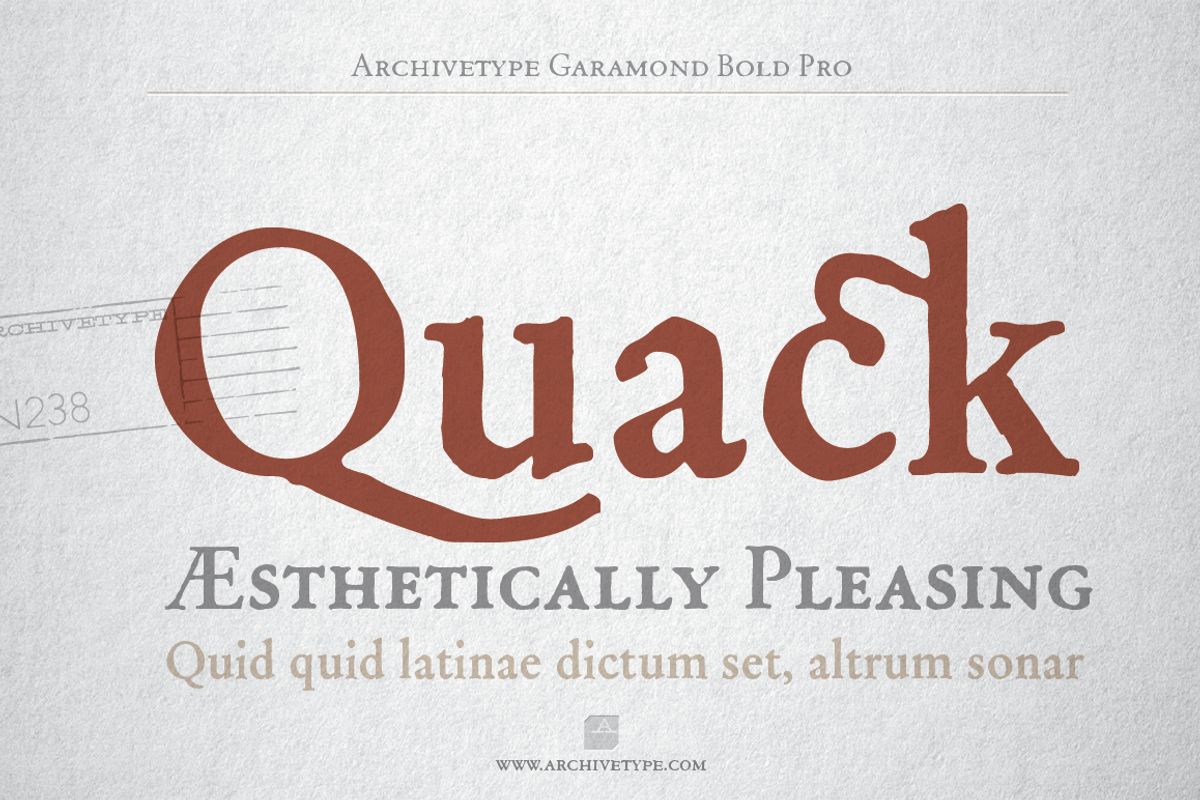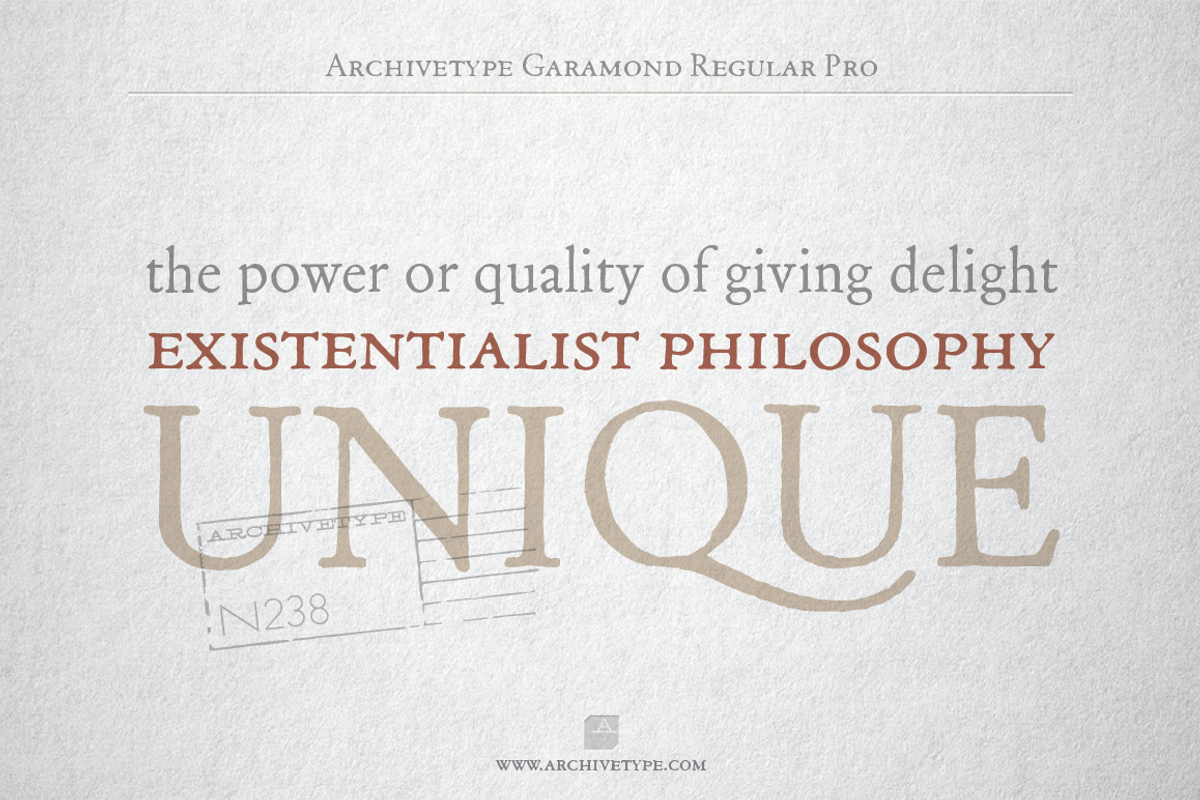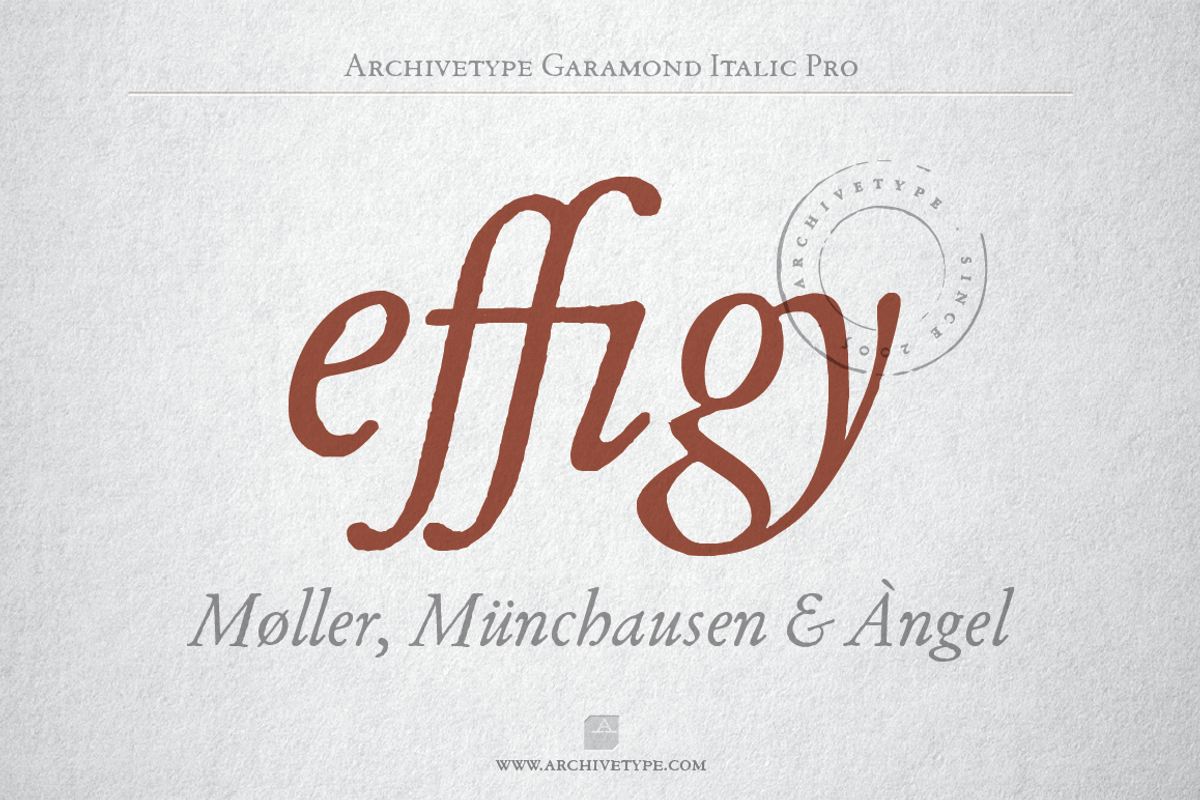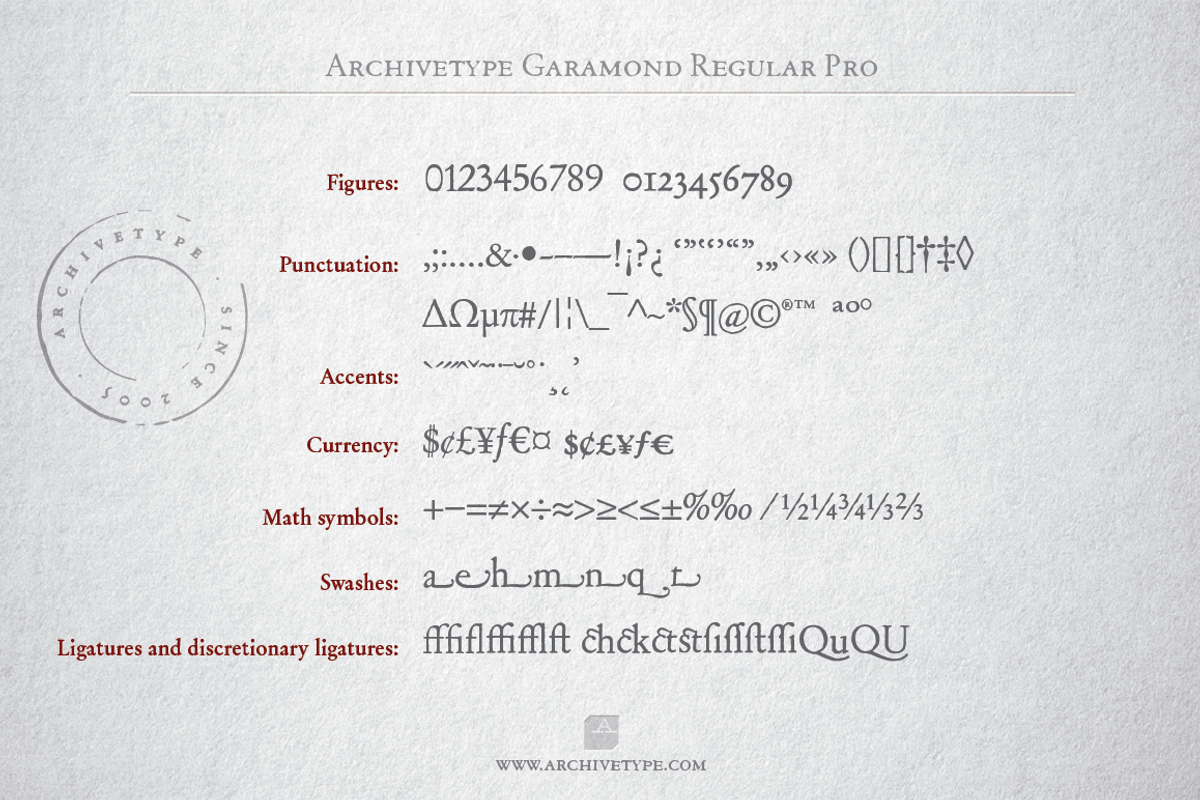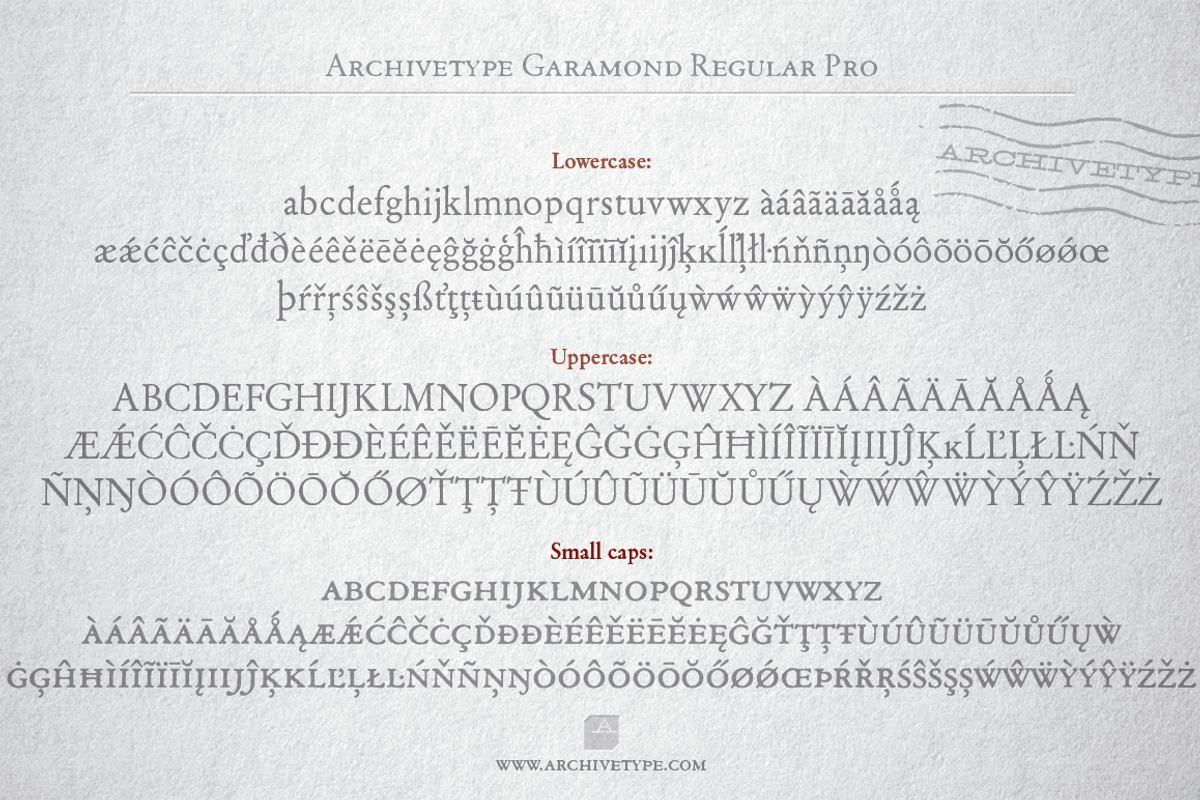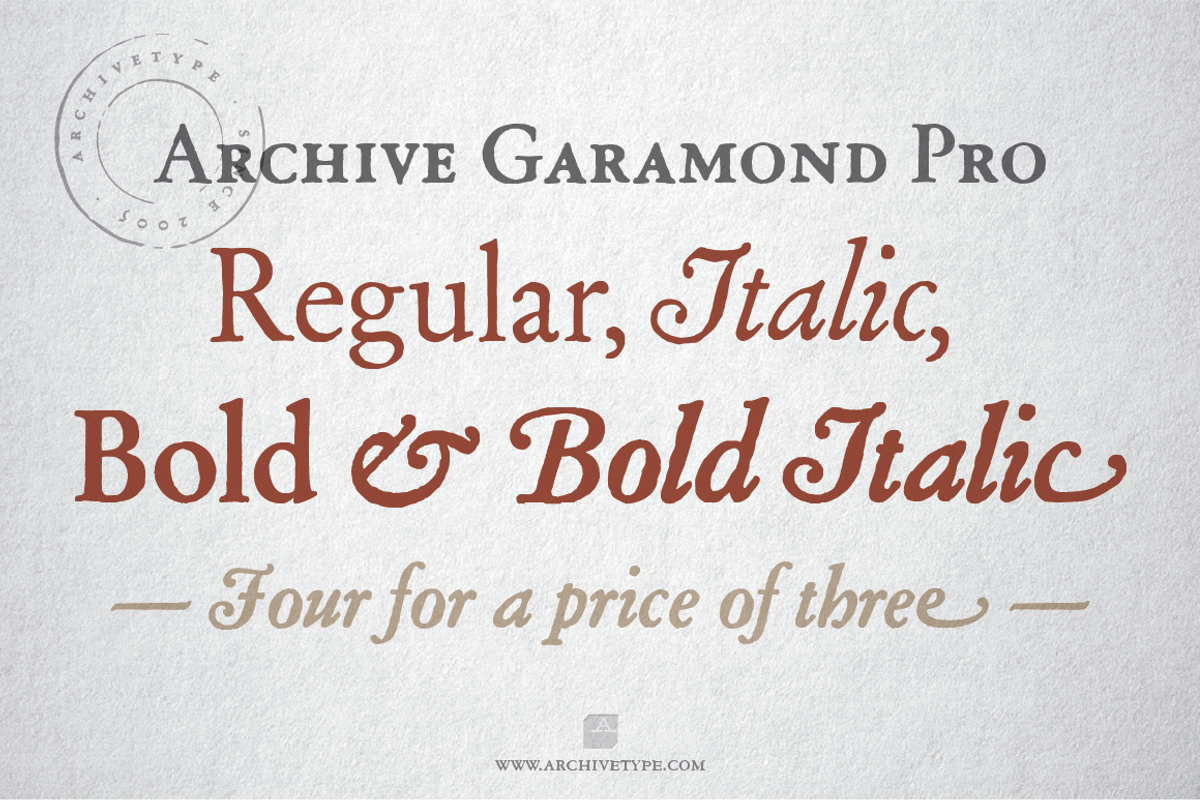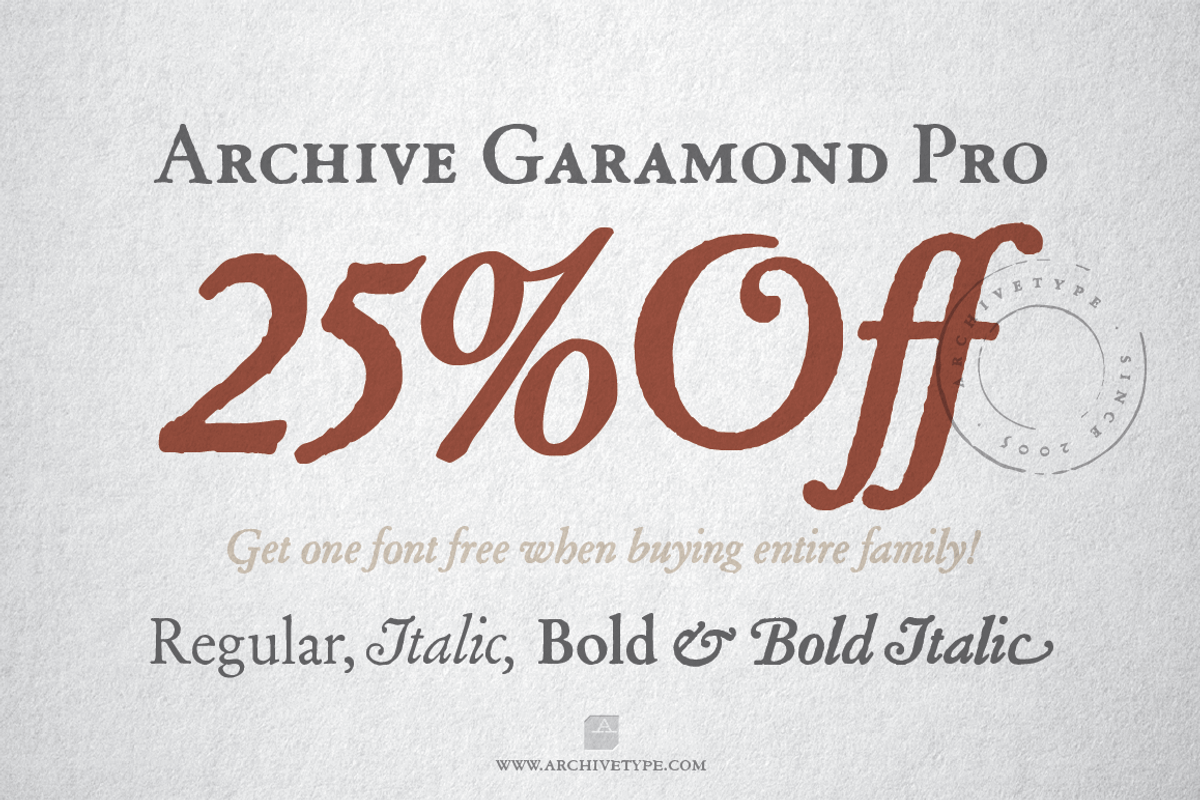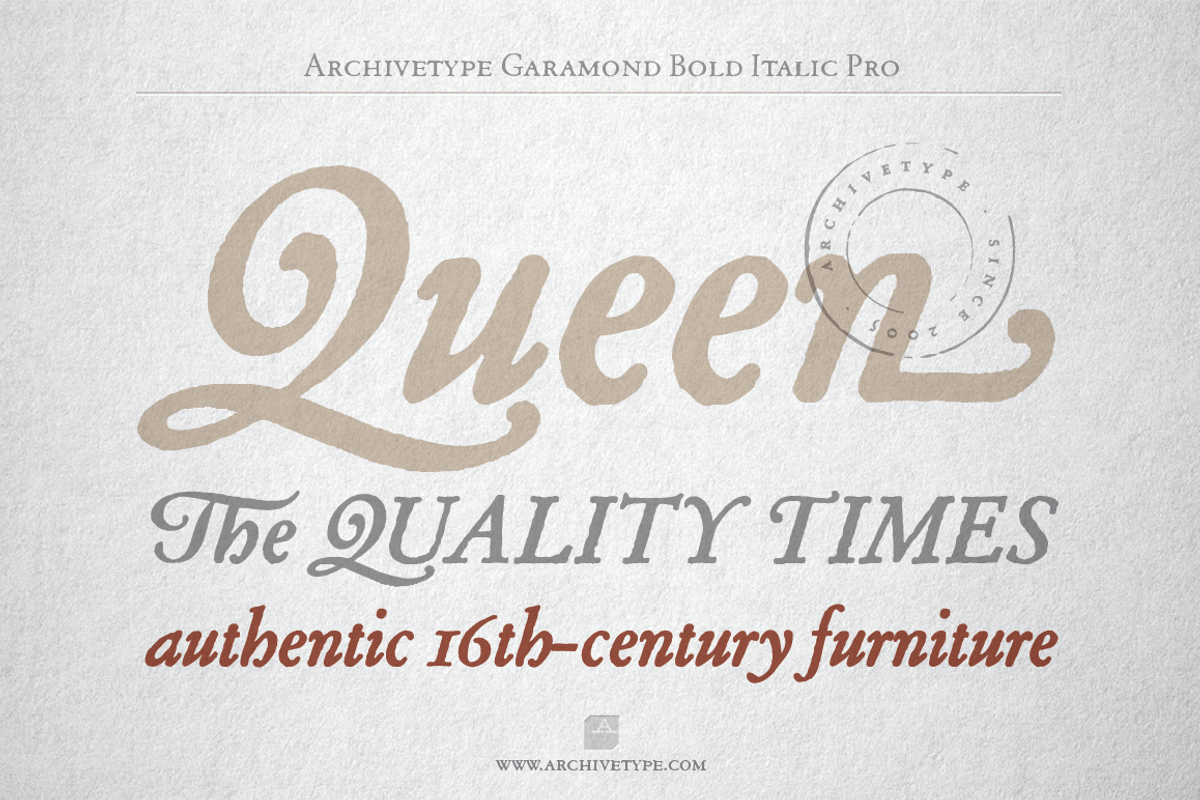
Archive Garamond Pro Family of 4
Archive Garamond is a typeface roughly based on the designs of Claude Garamond (ca. 1480 – 1561) , a French publisher and a leading typeface designer of that period.
While the majority of contemporary digital interpretations of the “Garamond types” are cleaner and more polished versions of that genre, Archive Garamond tries to keep the rough nature which was typical in the early days of printing. Archive Garamond has a rather unique, distinctive temperament which is even more emphasised with the preserved non-uniformity, such as irregular glyph shapes or a variable baseline. Although Archive Garamond was clearly made to be used for display sizes it works surprisingly well in text.
A Professional version of the typeface contains all glyphs, including the advanced typographic forms, such as different sets of figures, small caps, swashes, historical forms, etc. The font also enables full use of the OpenType features.